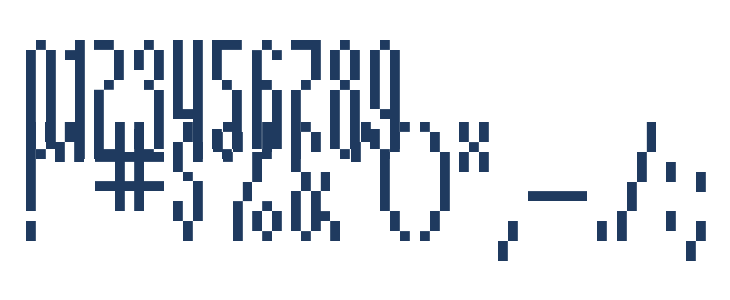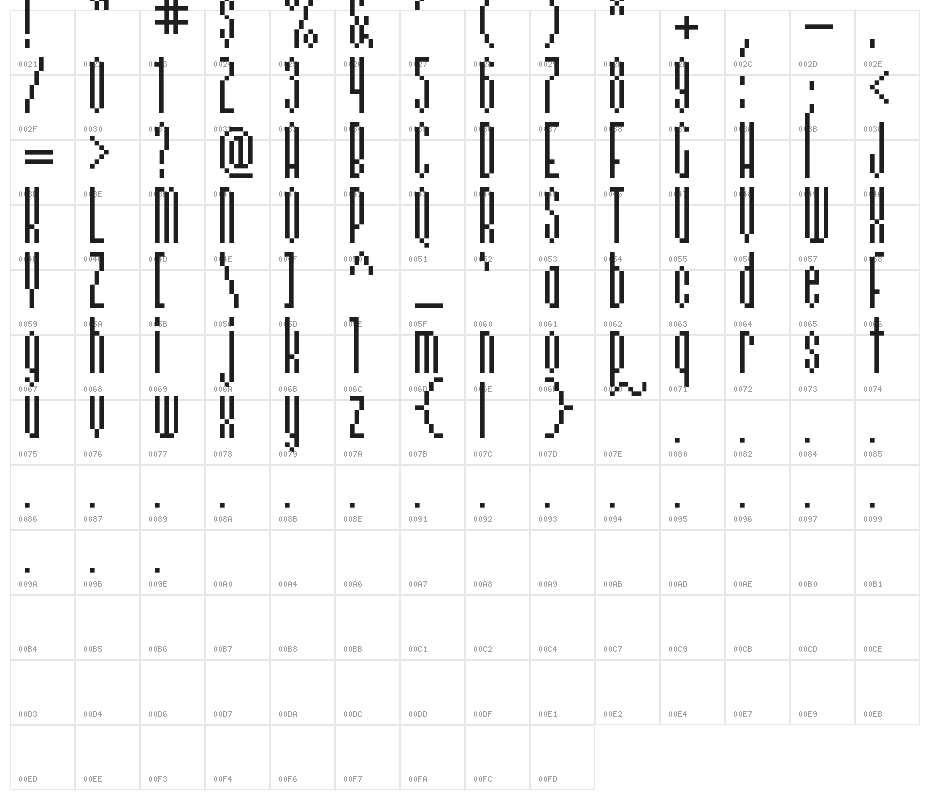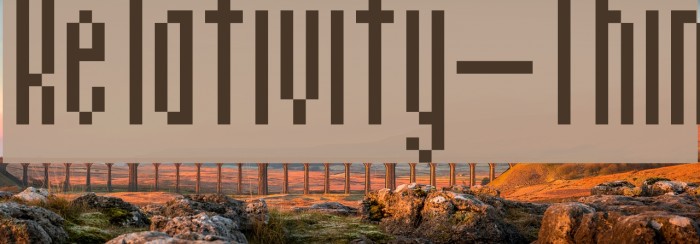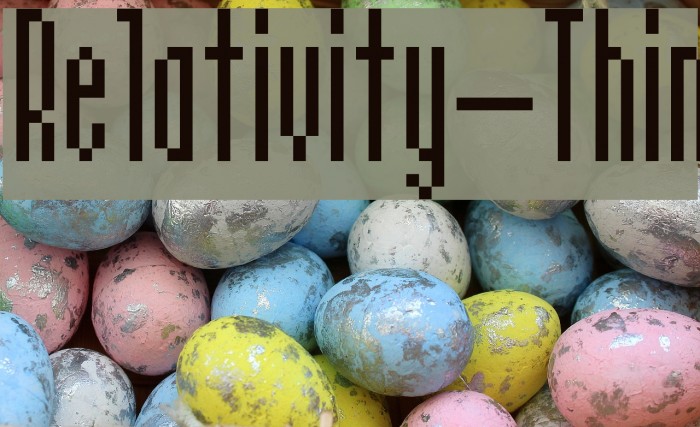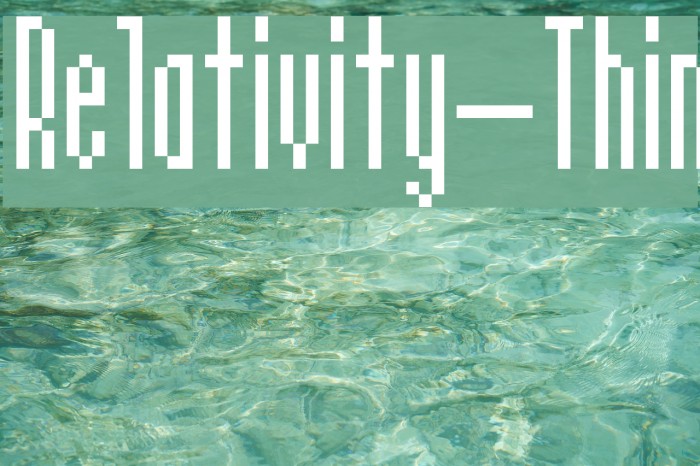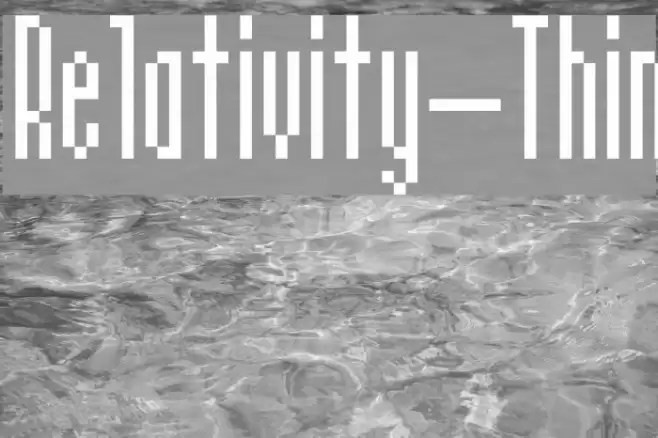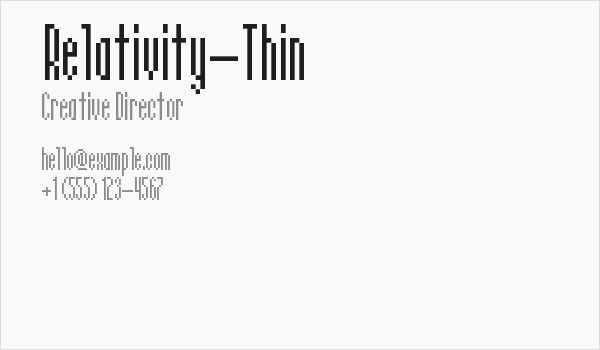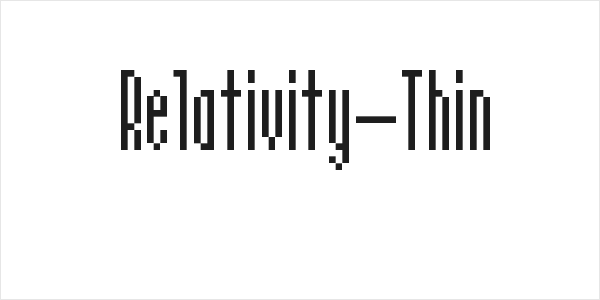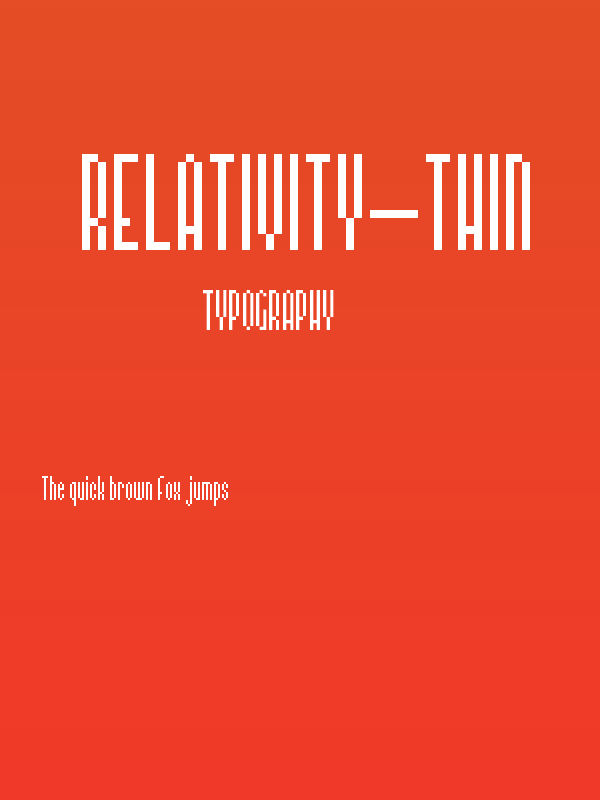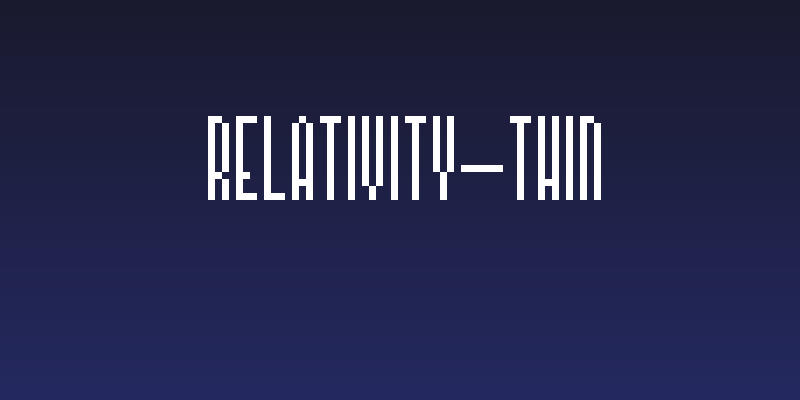
Relativity-Thin Font
Relativity-Thin Description
This font features a highly condensed and elongated style, characterized by its thin, vertical strokes and minimal horizontal elements. The design is modern and sleek, with a futuristic feel that emphasizes height and narrowness. The uppercase and lowercase letters maintain a consistent width, creating a uniform appearance. Numbers and special characters follow the same design principles, ensuring a cohesive look across all glyphs. This font's unique structure makes it stand out, suitable for projects that require a distinctive and avant-garde aesthetic.
| Proposed Projects | Ideal for futuristic branding, tech-related designs, modern posters, and digital interfaces. |